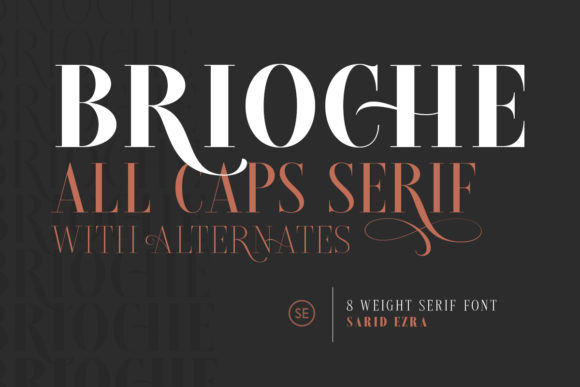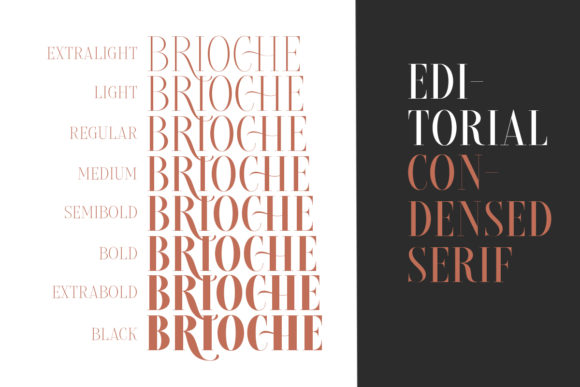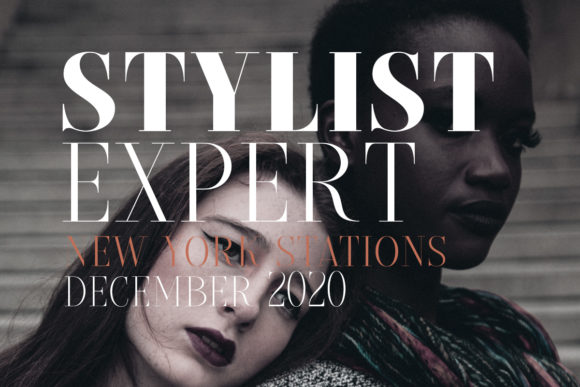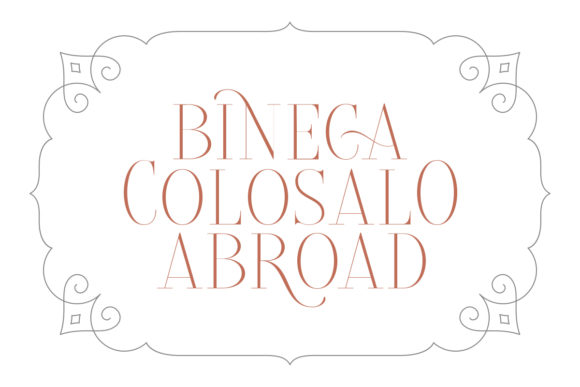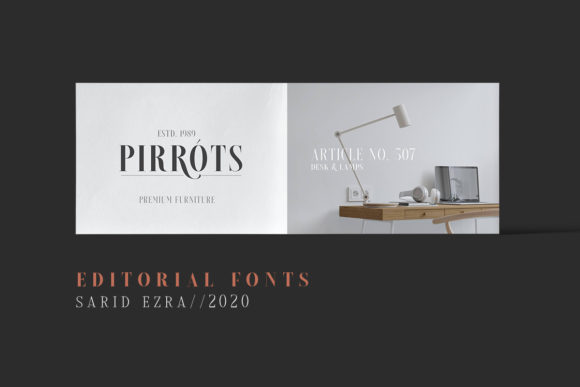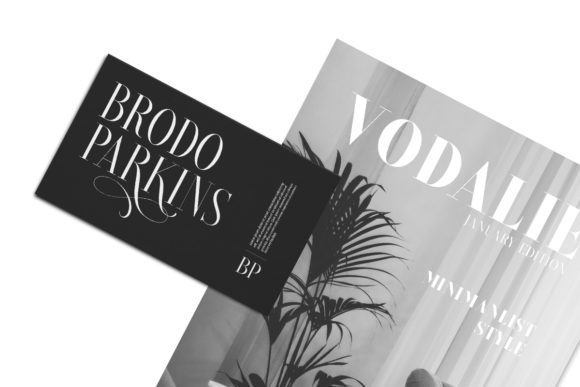
Brioche Font: Elevate Your Designs with Elegance and Sophistication
Brioche is an incredibly elegant and delicate serif font that has captured the hearts of designers and crafters alike. With its refined and sophisticated aesthetic, it can easily be matched to an incredibly large set of projects, making it a versatile and valuable addition to your creative arsenal. In this article, we’ll dive into the world of Brioche Font, exploring its unique features, uses, and benefits, and discover how it can make your designs stand out.
The Characteristics of Brioche Font
Brioche Font is a serif font that exudes elegance and refinement. Its delicate lines, subtle curves, and intricate details create a sophisticated and luxurious feel, perfect for designs that require a touch of high-end flair. The font’s classic and timeless aesthetic makes it suitable for a wide range of projects, from wedding invitations and branding materials to packaging and editorial design.
What Makes Brioche Font So Versatile?
Brioche Font’s versatility lies in its ability to adapt to various design styles and themes. Whether you’re working on a modern and minimalist project or a vintage-inspired design, Brioche Font can be easily paired with other fonts and design elements to create a cohesive and visually appealing look. Its delicate nature also makes it an excellent choice for designs that require a touch of whimsy and playfulness.
Benefits of Using Brioche Font
So, why should you choose Brioche Font for your next design project? Here are just a few benefits of using this beautiful font:
- Elegance and sophistication: Brioche Font adds a touch of luxury and refinement to any design, making it perfect for high-end brands and special occasions.
- Versatility: Brioche Font can be used in a wide range of projects, from print materials to digital designs, and can be easily paired with other fonts and design elements.
- Timeless appeal: Unlike trendy fonts that quickly go out of style, Brioche Font’s classic aesthetic ensures that your designs will remain stylish and relevant for years to come.
- Emotional connection: Brioche Font’s delicate and elegant nature can evoke emotions and create a connection with your audience, making it perfect for designs that require a personal touch.
How to Use Brioche Font in Your Designs
Now that we’ve explored the benefits and characteristics of Brioche Font, let’s dive into some practical tips on how to use it in your designs:
- Pair it with bold fonts: Combine Brioche Font with bold and modern fonts to create a striking contrast and add visual interest to your designs.
- Use it for headings and titles: Brioche Font’s elegant nature makes it perfect for headings and titles, where it can add a touch of sophistication and luxury.
- Add it to your branding materials: Use Brioche Font in your branding materials, such as business cards, letterheads, and packaging, to create a cohesive and high-end look.
- Experiment with colors and textures: Don’t be afraid to experiment with different colors and textures to add depth and visual interest to your designs featuring Brioche Font.
Brioche Font is an incredibly elegant and delicate serif font that can elevate your designs to new heights. Its versatility, timeless appeal, and emotional connection make it a valuable addition to your creative arsenal. Whether you’re a designer, crafter, or simply someone who appreciates beautiful typography, Brioche Font is sure to inspire and delight. So, add it to your creative ideas and notice how it makes them stand out!